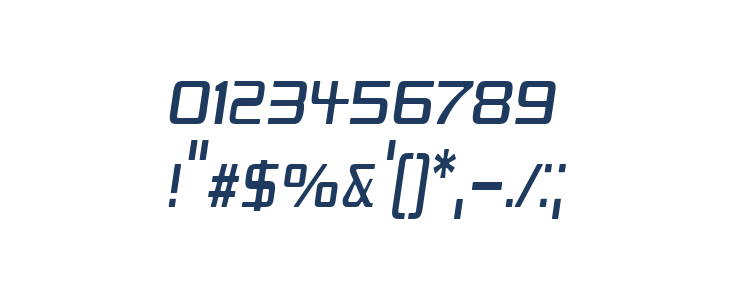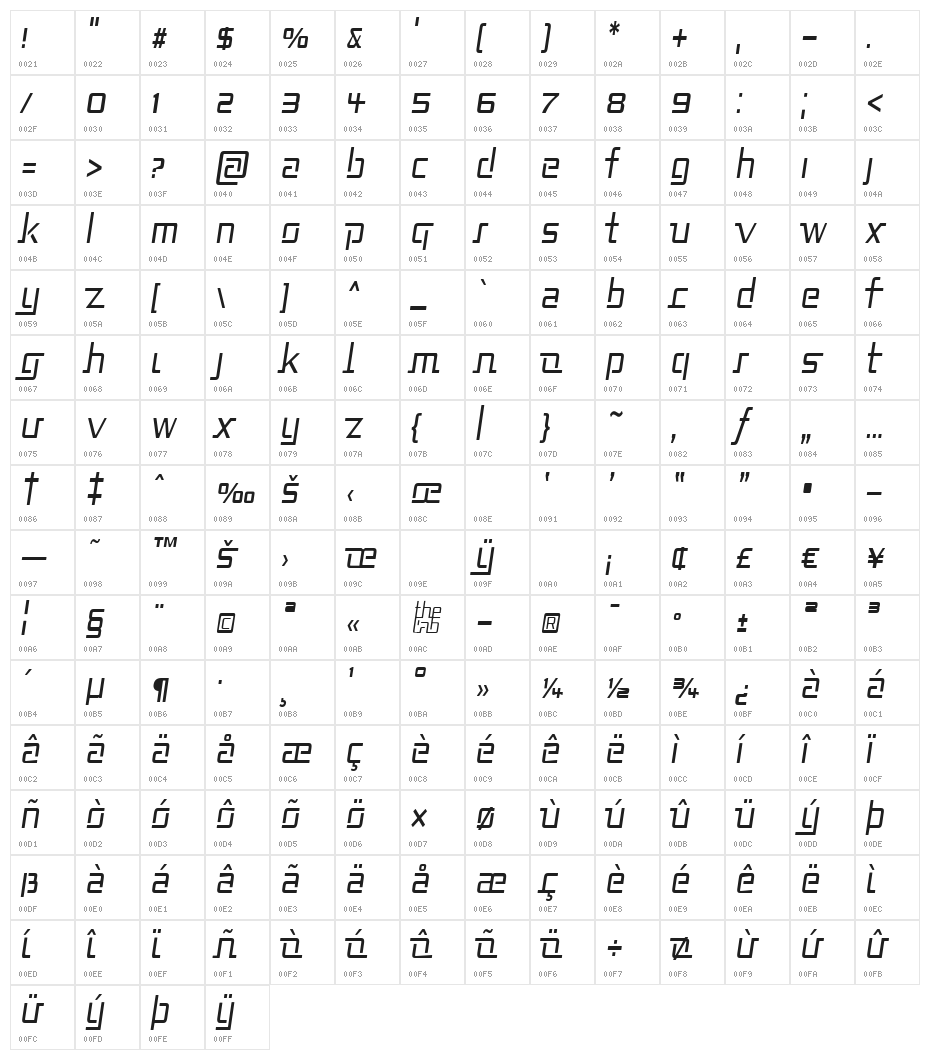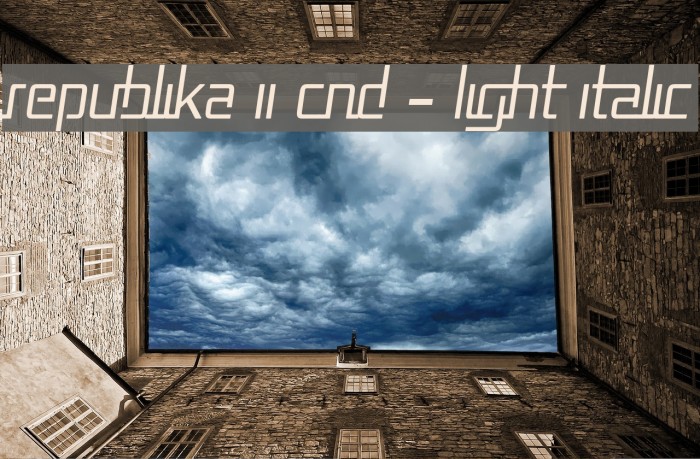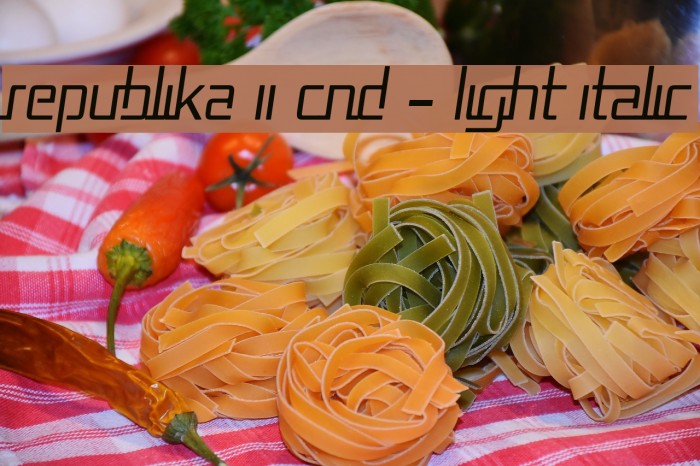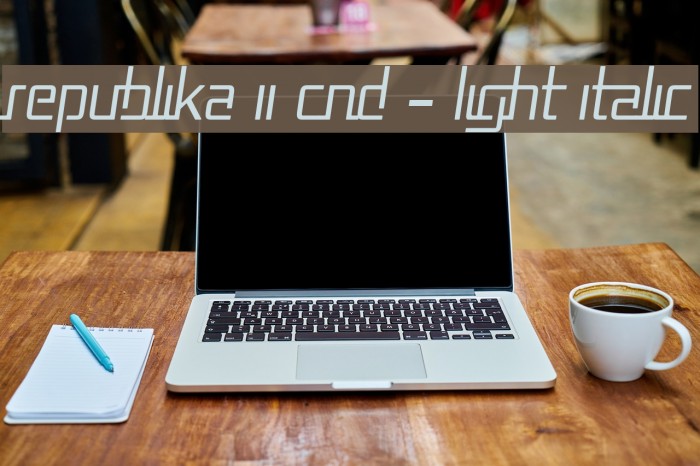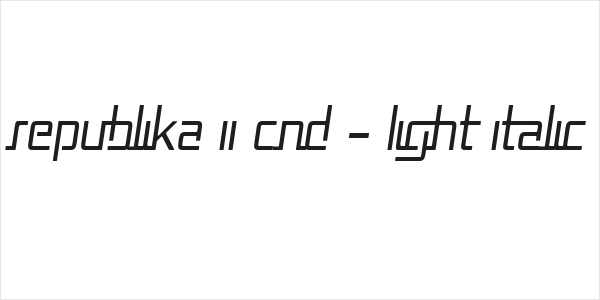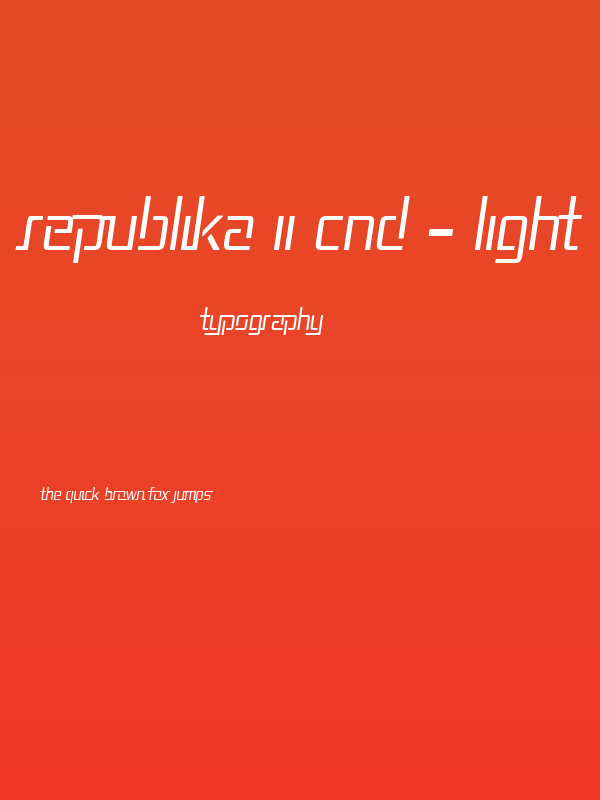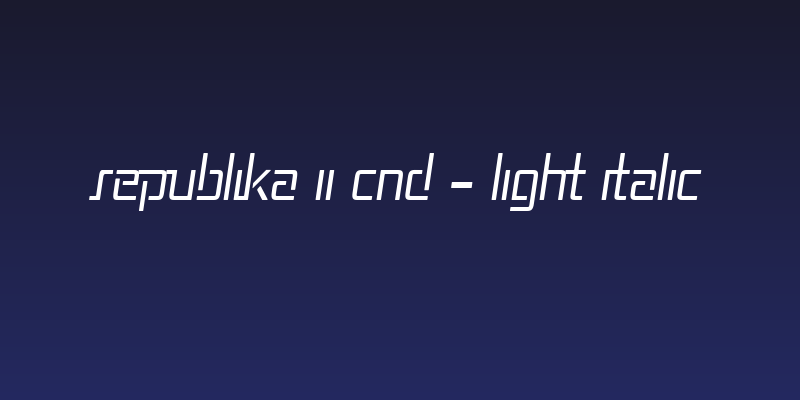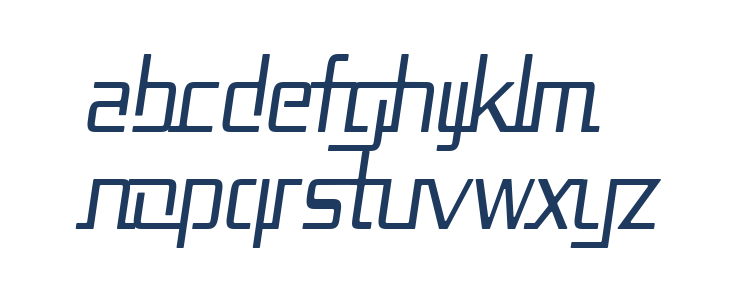
Republika II Cnd - Light Italic Font
Republika II Cnd - Light Italic Description
This font features a sleek, modern design with a condensed and italicized style. The characters are crafted with a geometric precision, offering a futuristic and streamlined appearance. The strokes are consistent and light, providing an airy feel while maintaining readability. The font's angular and slightly slanted form gives it a dynamic and energetic look, making it suitable for contemporary design projects. The spacing between characters is tight, enhancing its compact and efficient aesthetic.
| Proposed Projects | Ideal for tech branding, modern advertising, futuristic posters, and innovative product packaging. |